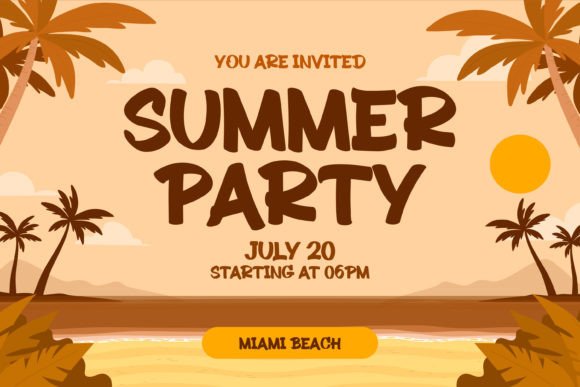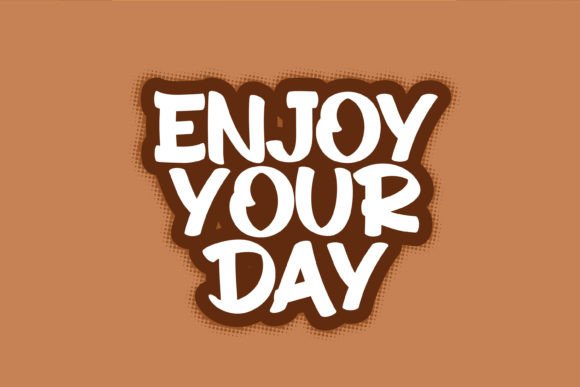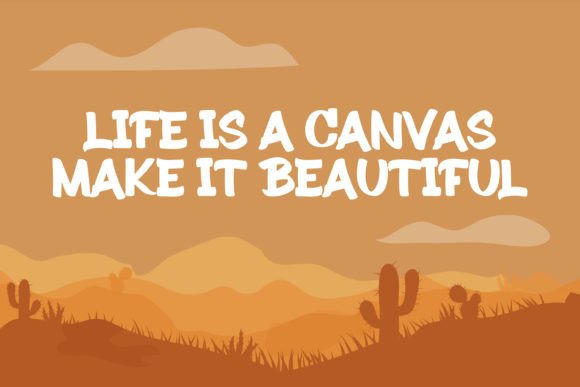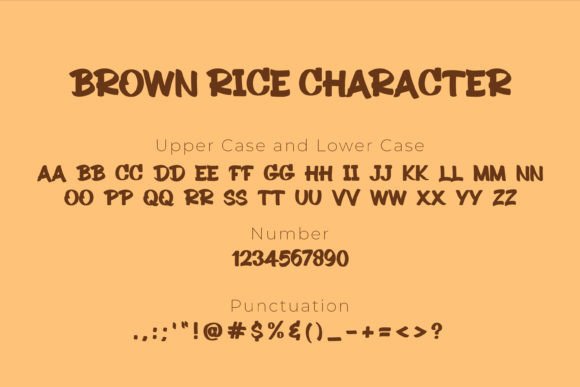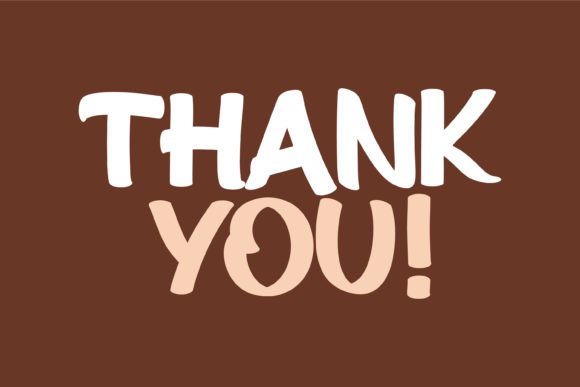
Introduction to Brown Rice Font
Introducing “Brown Rice Playful Display Font” – Where Fun Meets Functionality.
Get ready to add a sprinkle of joy to your designs with Brown Rice Playful Display Font, a delightful typeface designed to infuse your projects with whimsy and personality Whether you’re crafting invitations, posters, or social media graphics, Brown Rice is your secret ingredient for creating designs that stand out from the crowd.
Key Features of Brown Rice Font
Why Choose Brown Rice Font?
Brown Rice Font offers exceptional quality and versatility, making it a valuable addition to your design toolkit. Whether you’re creating for personal projects or commercial use, Brown Rice Font delivers professional results.